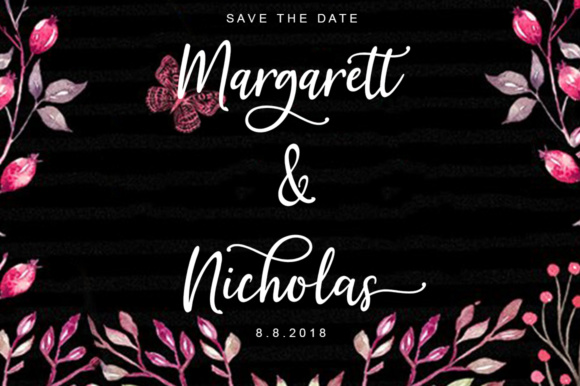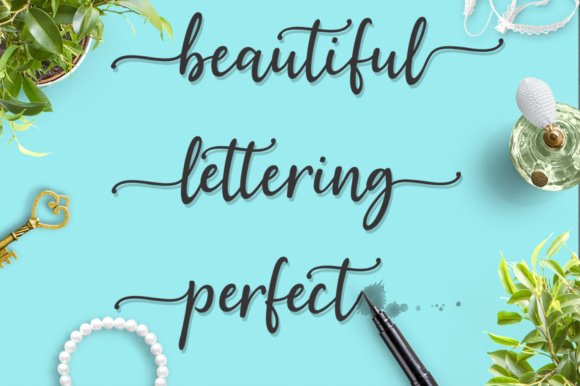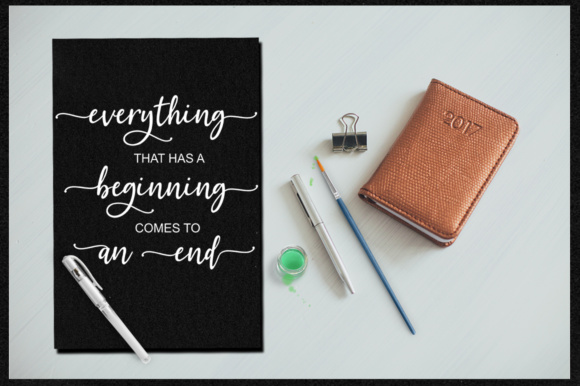
Introduction to Nidalis Font
Imagine you’re working on a creative project, pouring your heart and soul into every detail, and the perfect font is all that’s missing to bring it to life. This is where Nidalis Font comes in – a beautifully crafted Script font that exudes elegance and sophistication, making it the perfect design resource for any project.
With its varied base line and fine lines, Nidalis Font adds a touch of modernity to your design, while its classic feel ensures it will never go out of style. Whether you’re working on a branding project, creating a digital asset, or designing a website, Nidalis Font is a valuable addition to your toolkit.
Key Features of Nidalis Font
- High-quality, professional font designed for creative projects and design resources, available for free download.
- Unique and stylish design with a transparent background, perfect for adding a touch of elegance to any project.
- Each font character is carefully crafted with a high resolution of 300 DPI, ensuring crisp and clear text output.
- The Nidalis Font is ideal for use in digital designs, such as website headers, social media graphics, and mobile app interfaces.
- It’s a versatile font that can be used in a range of creative projects, from branding and advertising to publishing and editorial design.
Honest Review: Nidalis Font
As a designer, I’m always on the lookout for high-quality design resources that can elevate my creative project. Recently, I had the chance to work with the Nidalis Font, and I’m excited to share my honest review with you.
What works well with the Nidalis Font is its versatility and sleek design. It’s perfect for creating modern and minimalist designs, and it’s available for free download. This is a huge plus for designers on a budget or those who want to experiment with different fonts without committing to a purchase. The font also features a transparent background, which makes it easy to customize and pair with other design elements.
- ✨ High-quality design that’s perfect for modern projects
However, I did encounter some limitations with the Nidalis Font. The font family is relatively small, and it may not be suitable for large-scale projects or those that require a lot of font variations. Additionally, the font’s design can be quite bold, which may not be suitable for all types of designs.
Overall, I would recommend the Nidalis Font for designers who want a high-quality, modern font that’s easy to use and customize. Just be aware of its limitations and use it in projects where it will shine.
Nidalis Font
Nidalis Font is a high-quality design resource perfect for your next creative project. With a transparent background, this font is versatile and easy to use in various applications.
Tips for Getting the Most Out of Nidalis Font
To get the most out of Nidalis Font, be sure to experiment with different font sizes, colors, and combinations. You can also use the font in conjunction with other design elements to create a unique and eye-catching look.
Nidalis Font is perfect for a variety of creative projects, including:
- Graphic design projects
- Presentations and documents
- Website design